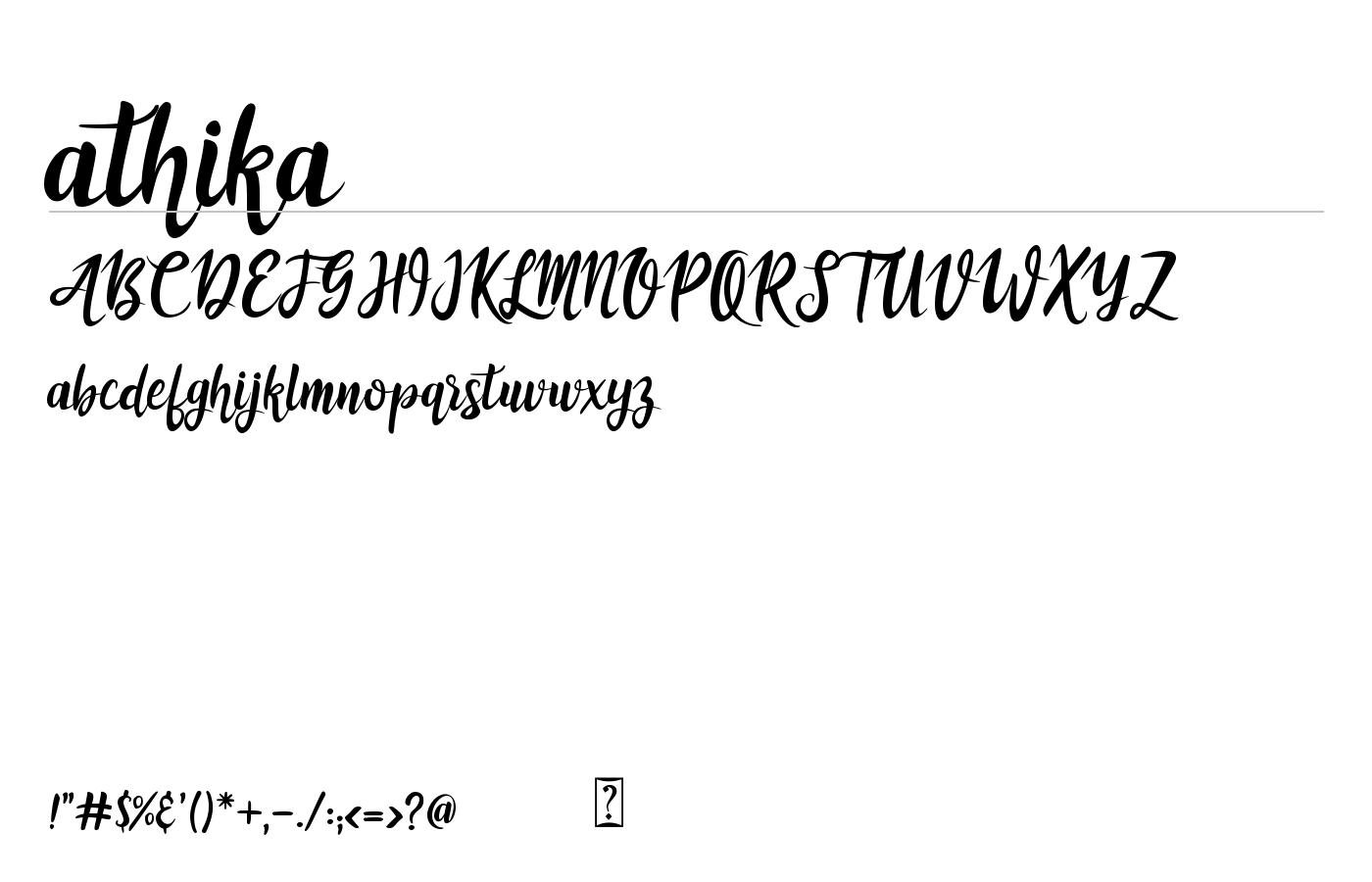
Athika is a lively script font with a smooth, flowing style that mimics elegant handwriting. It features a medium weight and moderately tall x-height, with graceful curves and a slightly playful yet sophisticated personality, ideal for adding a personal, creative touch to invitations, branding, or lifestyle projects. This font works especially well in logos, packaging, and headlines where a warm, approachable, and stylish look is desired.
athika Font
About athika Font
| Font family | athika Font |
| Designer | ErgibiStudio |